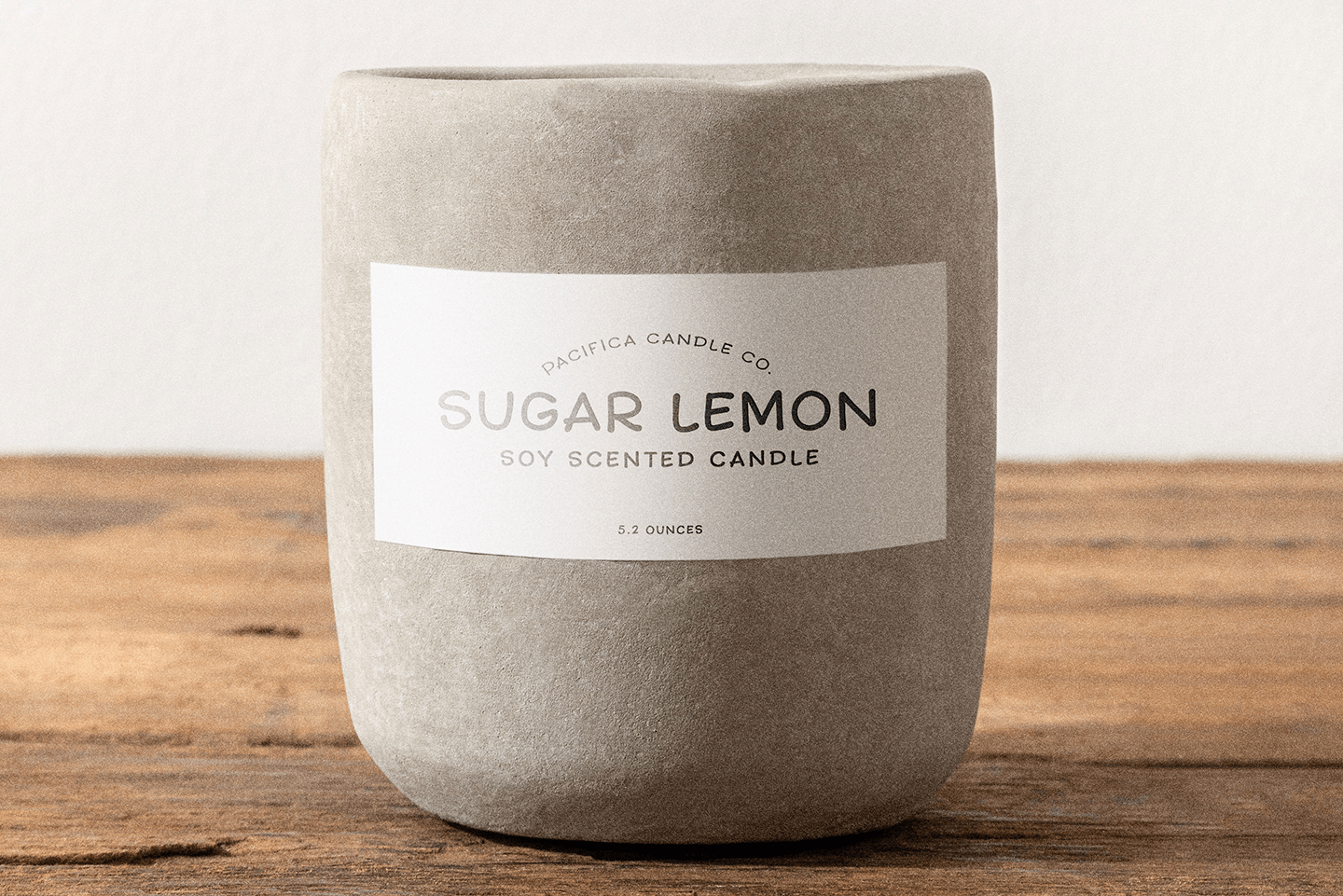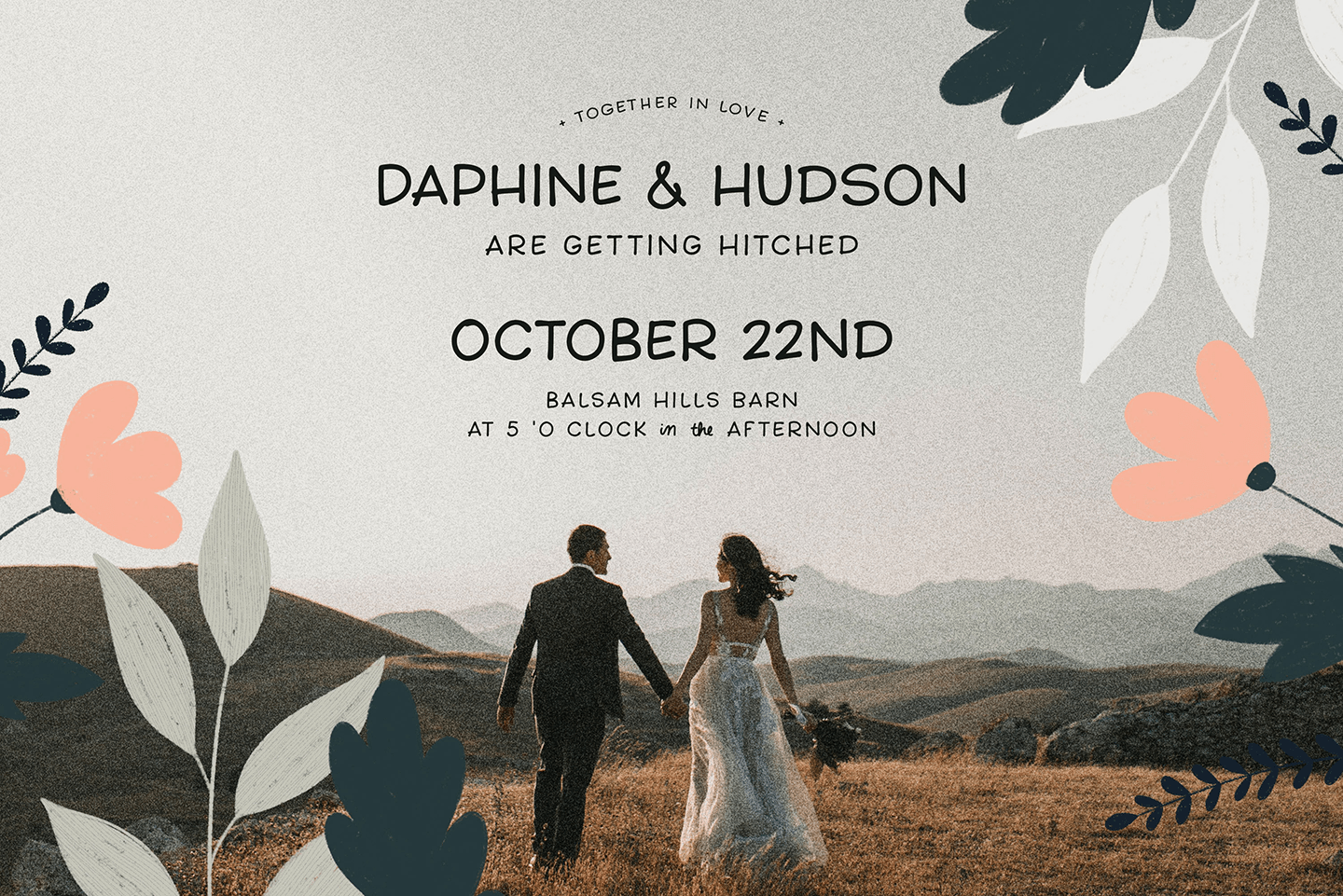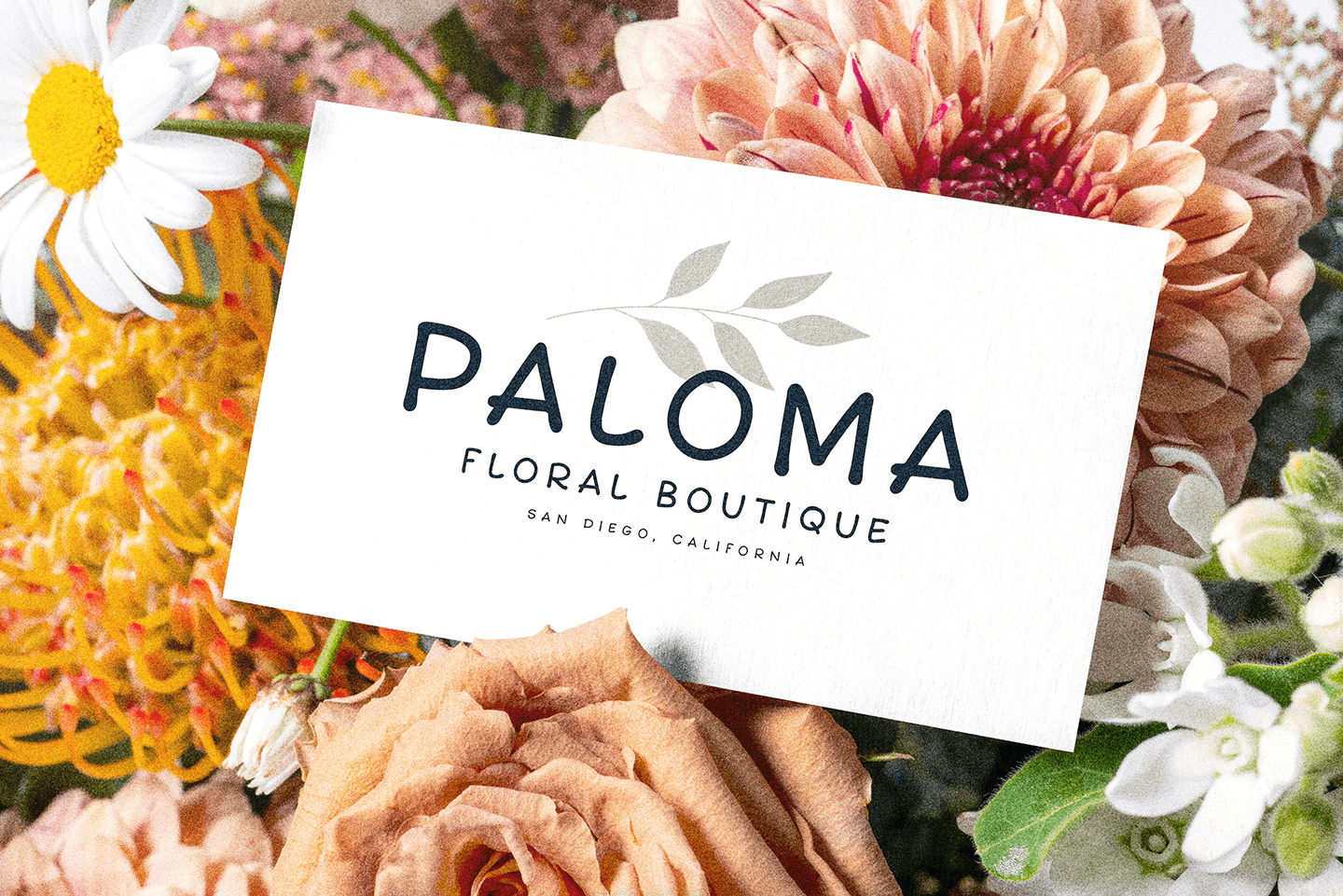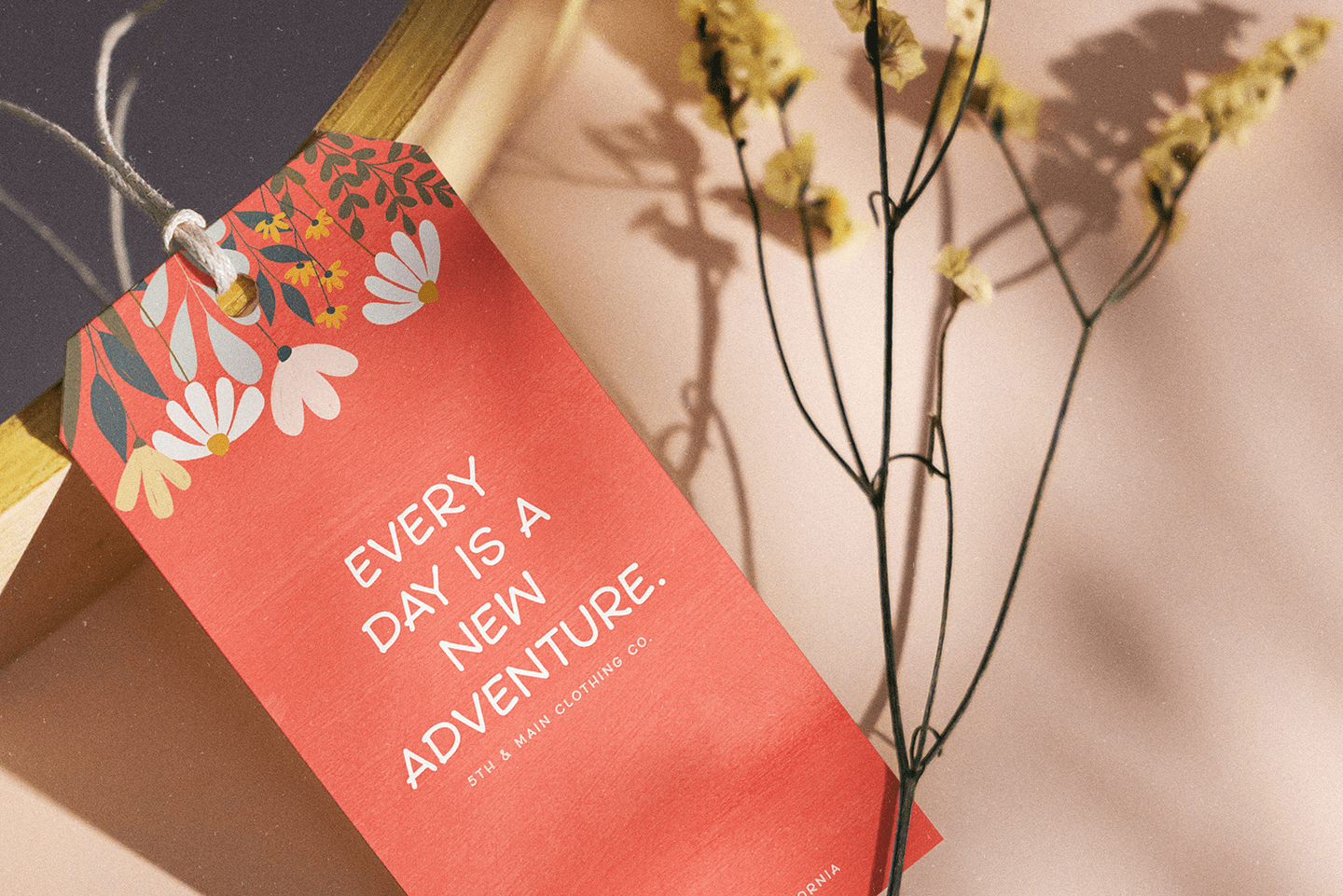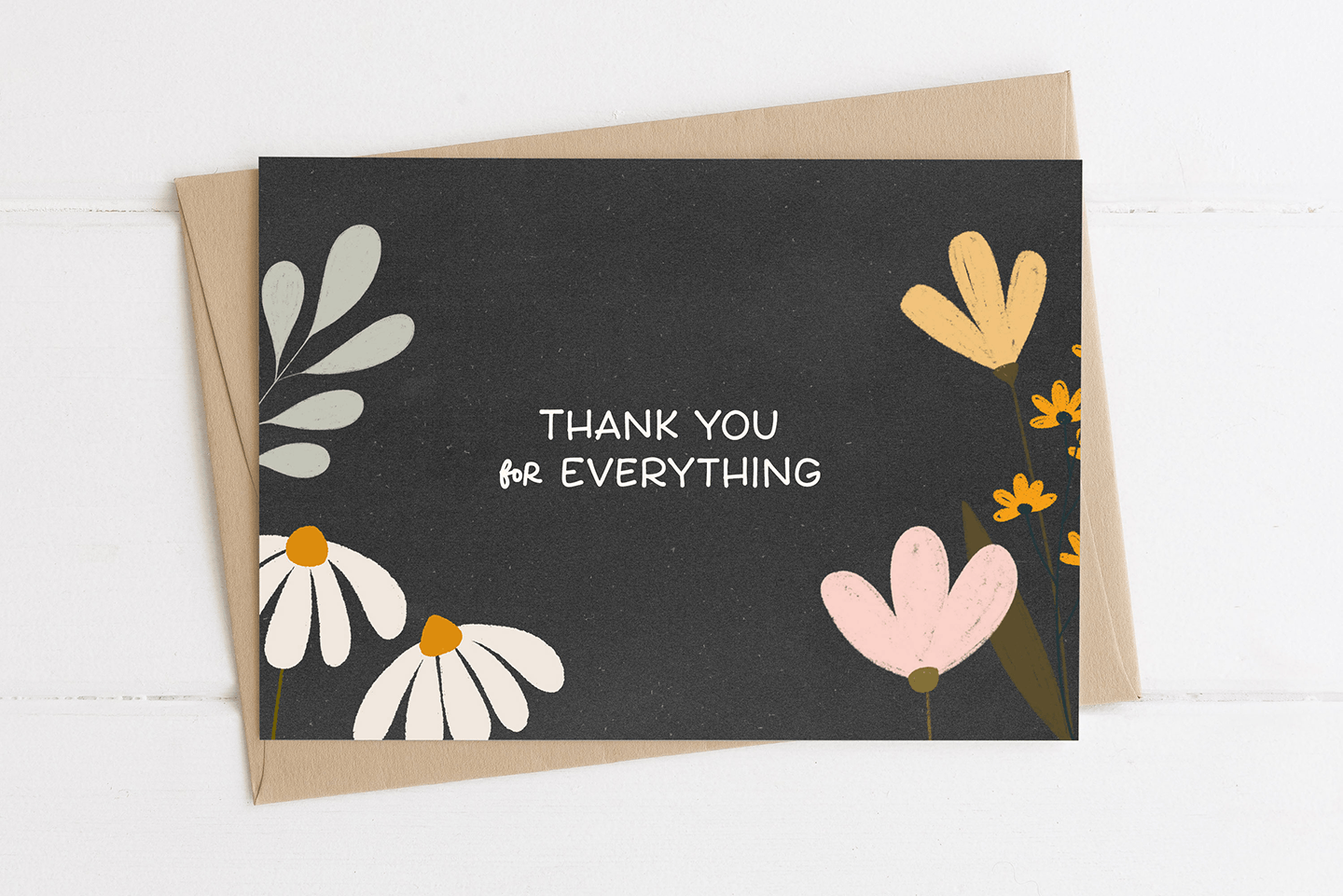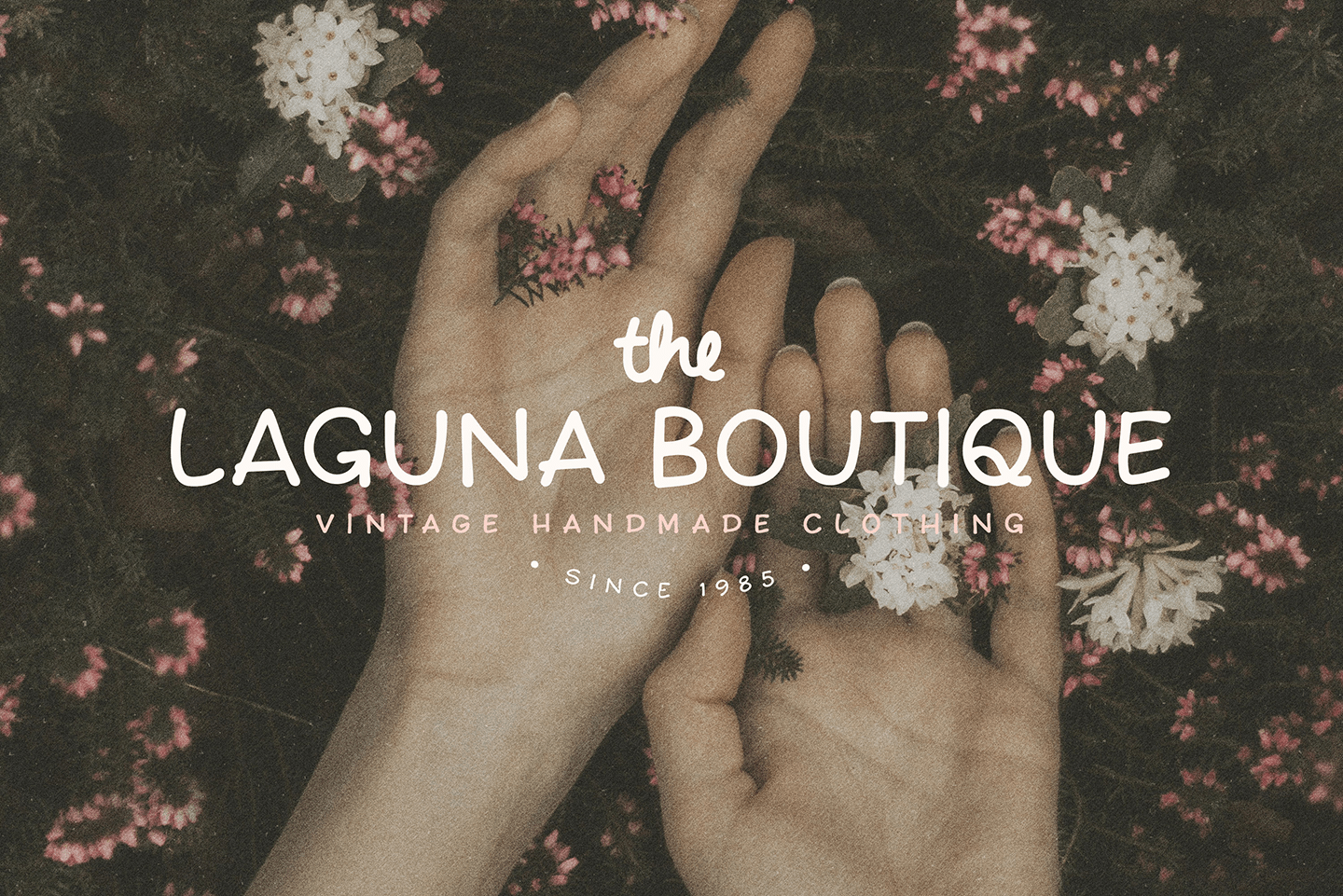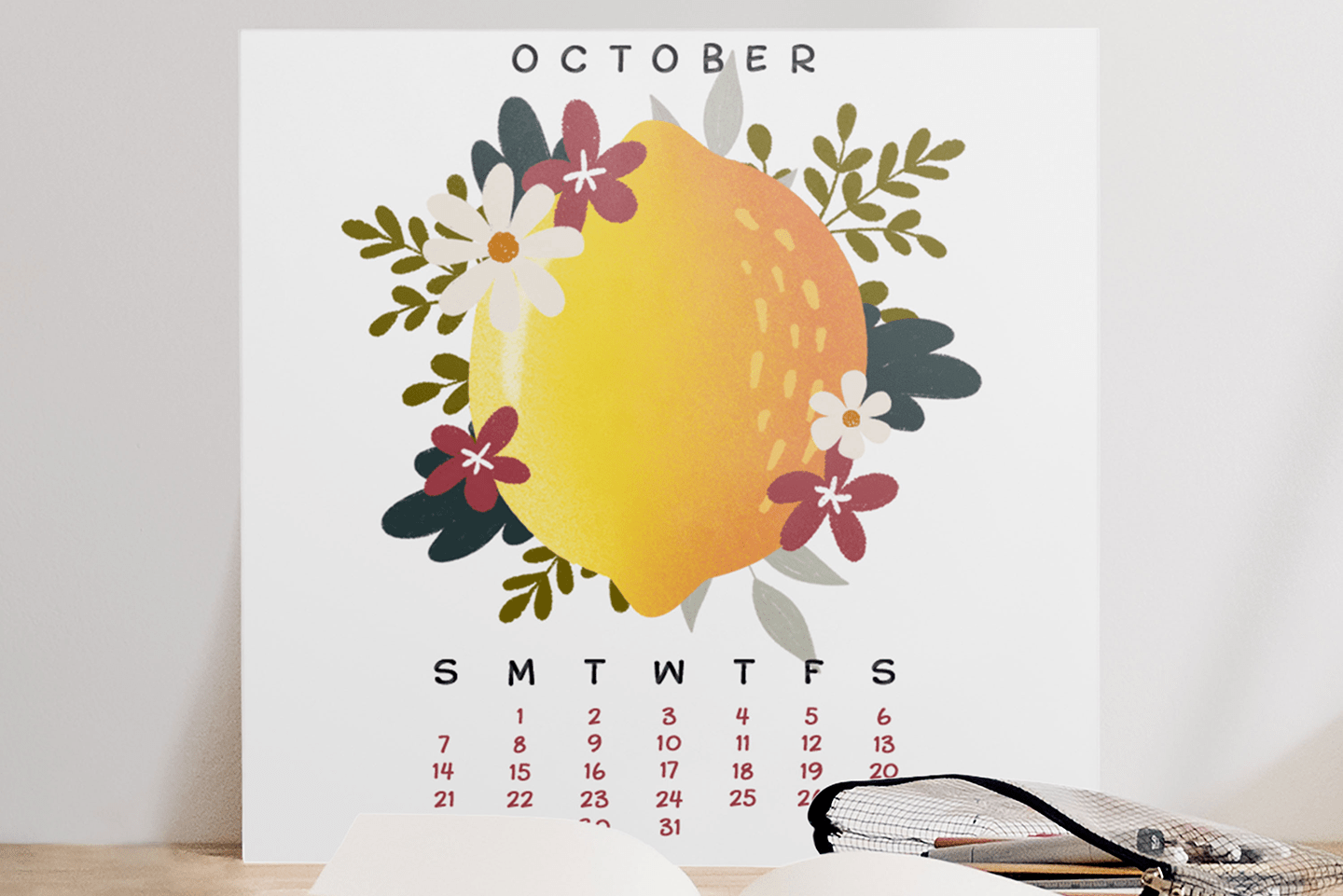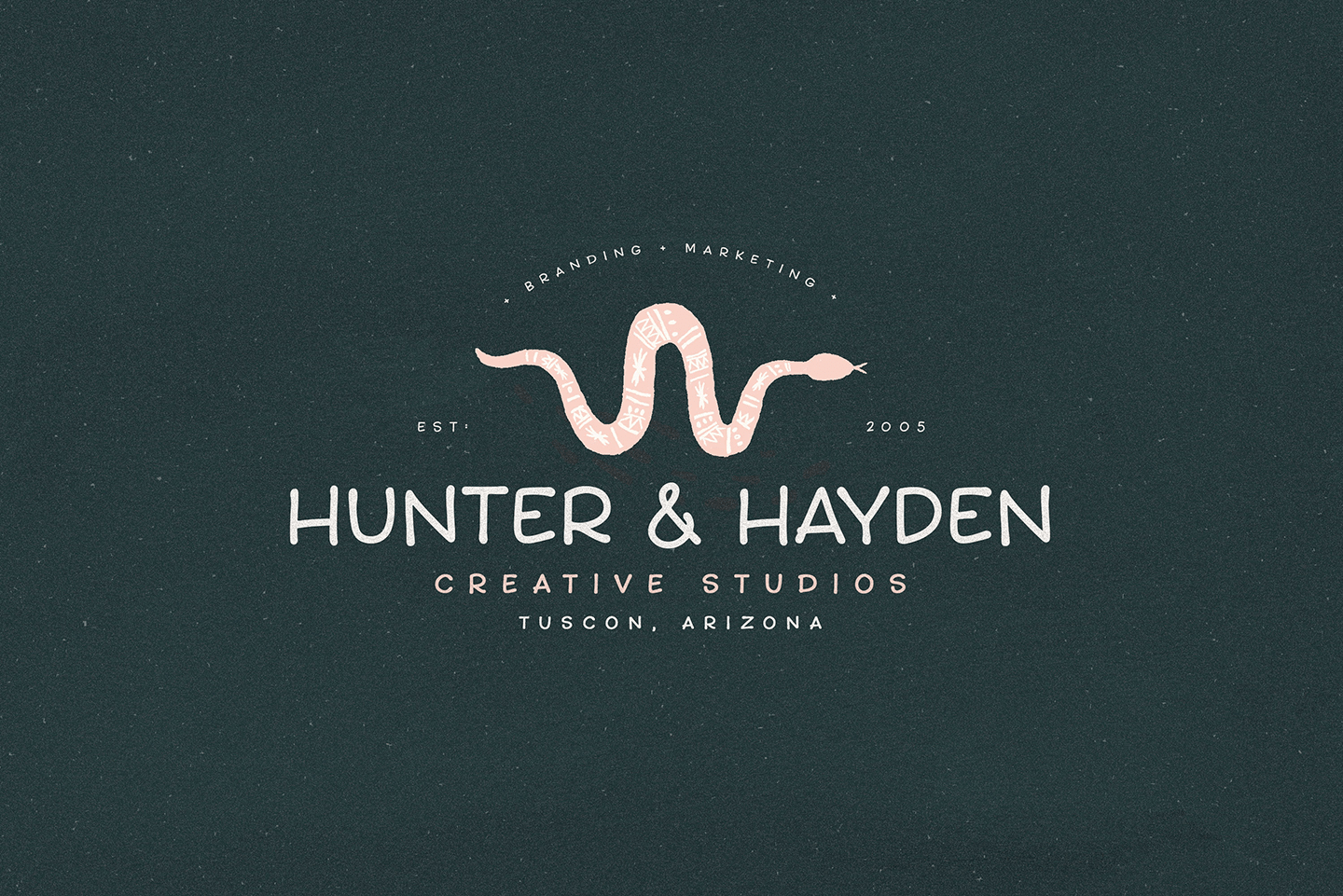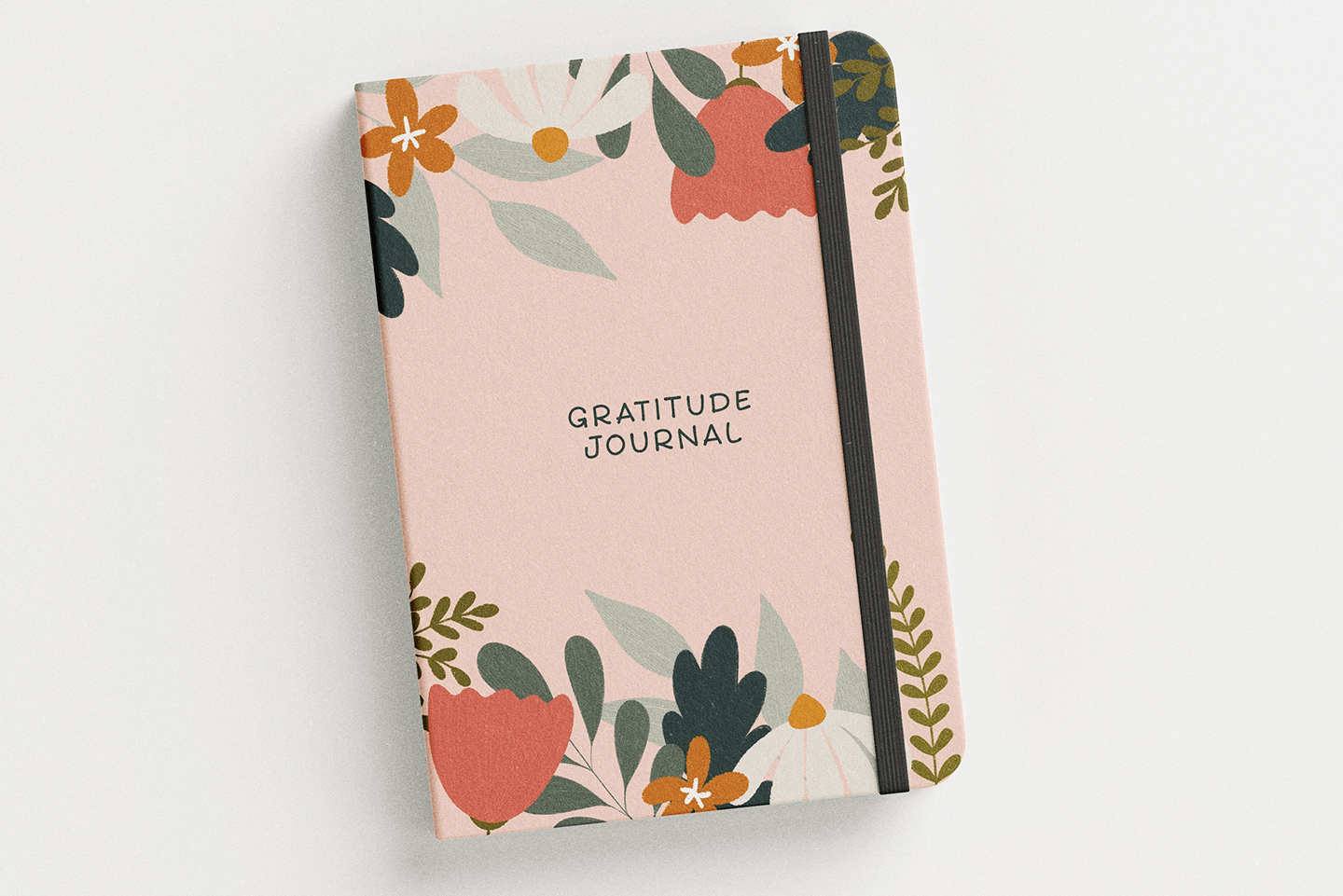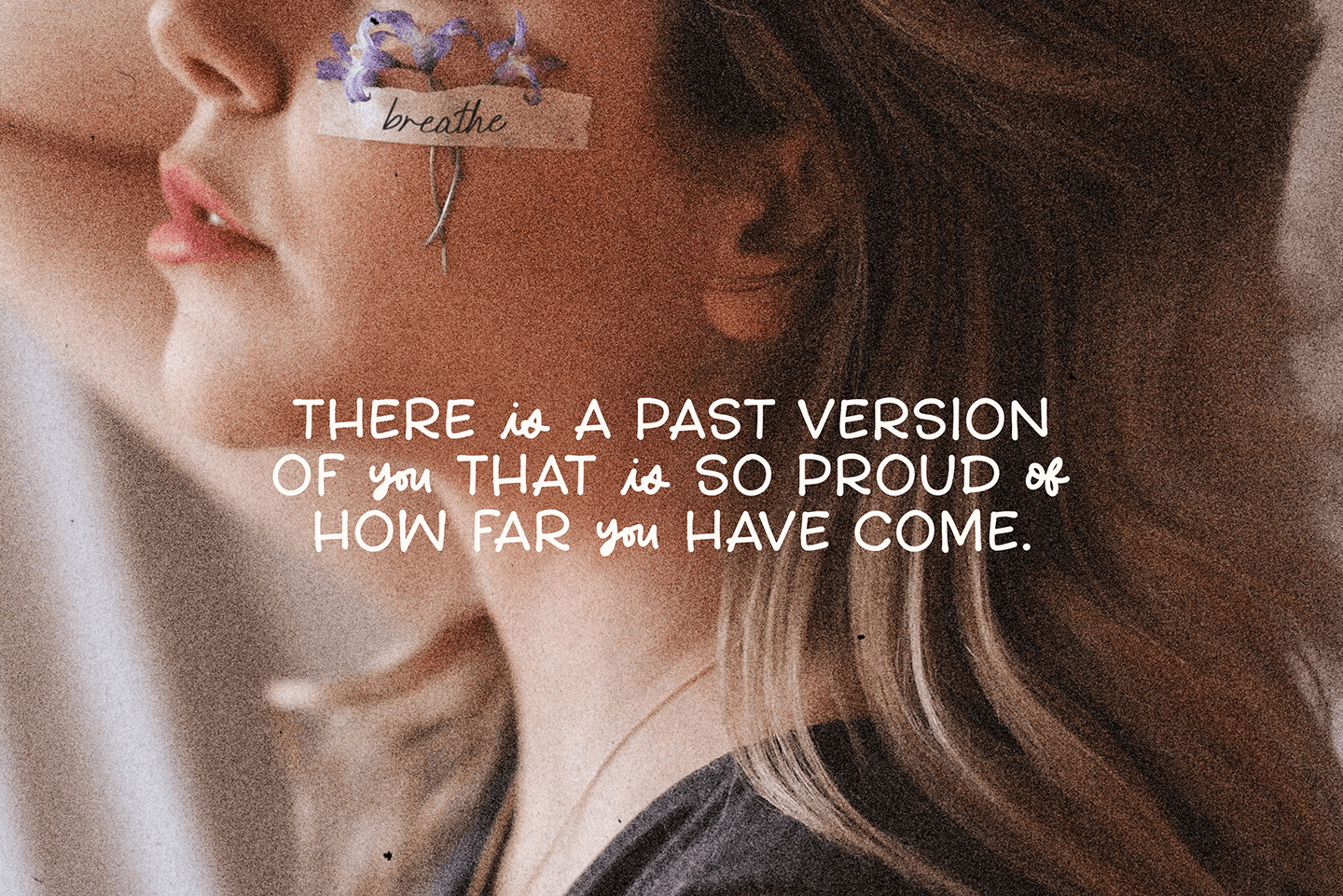
Floral Notes
Font Family by Callie Rian & Co
Feast your eyes on Floral Notes, a super clean gel pen font with catchwords & floral elements. Use this adorable type on notebooks, journals, books, labels, stickers, quotes and so much more!